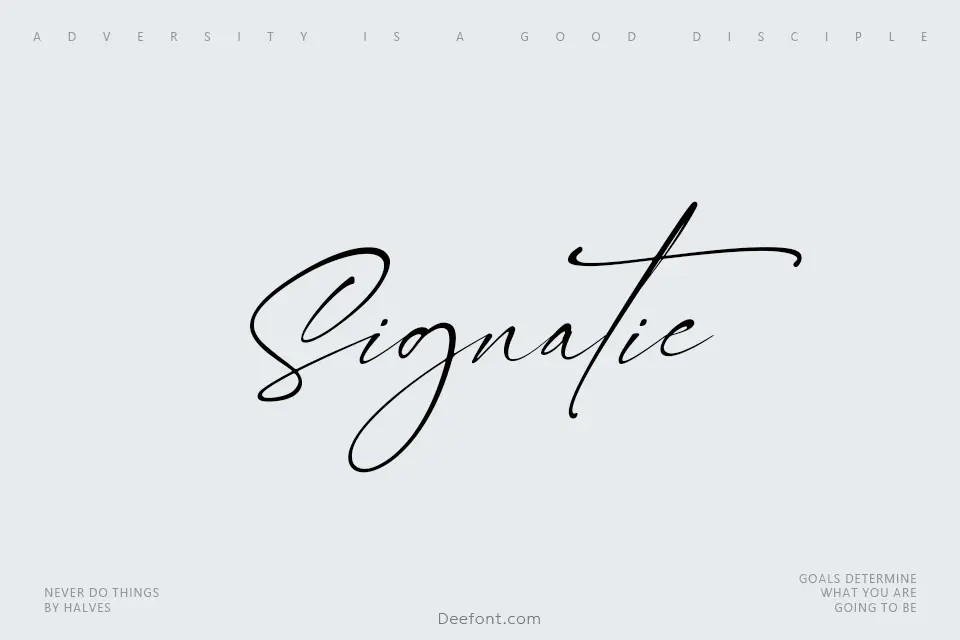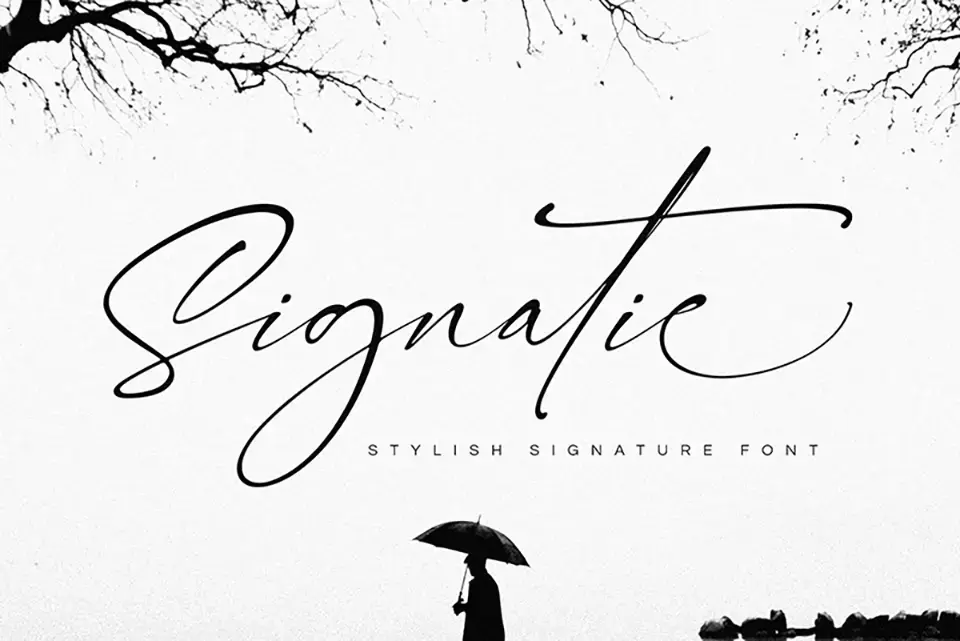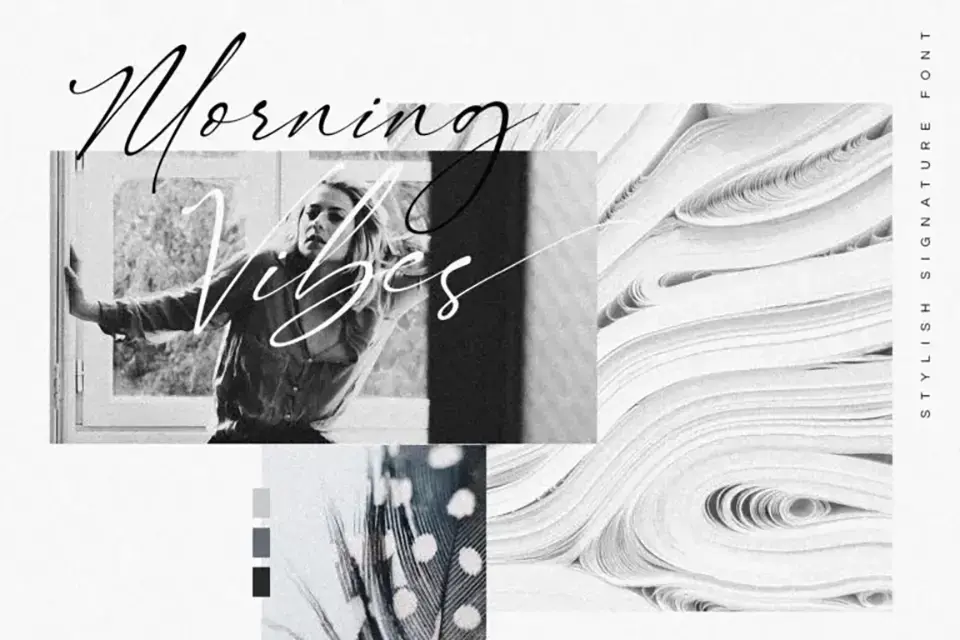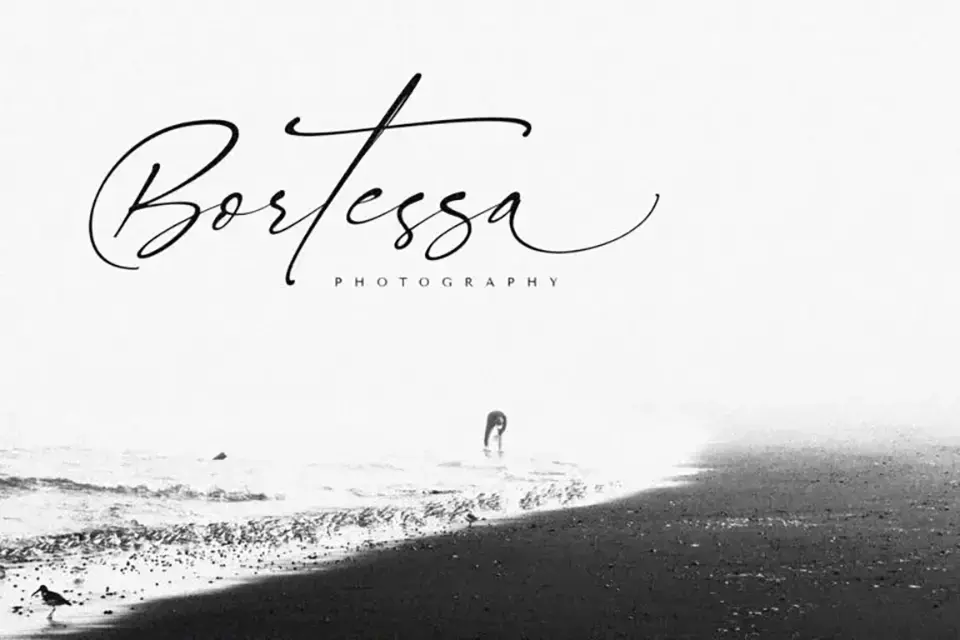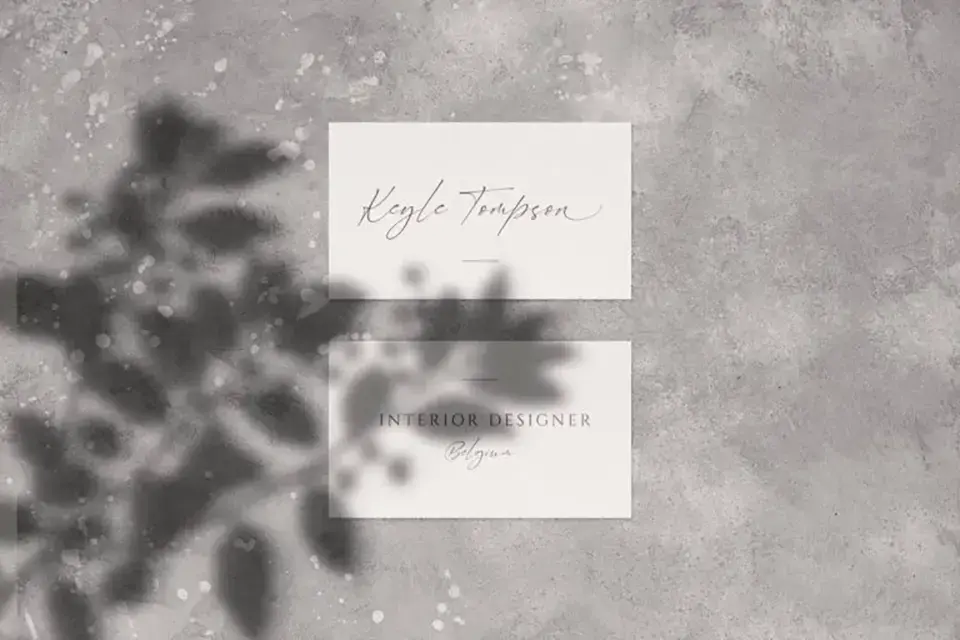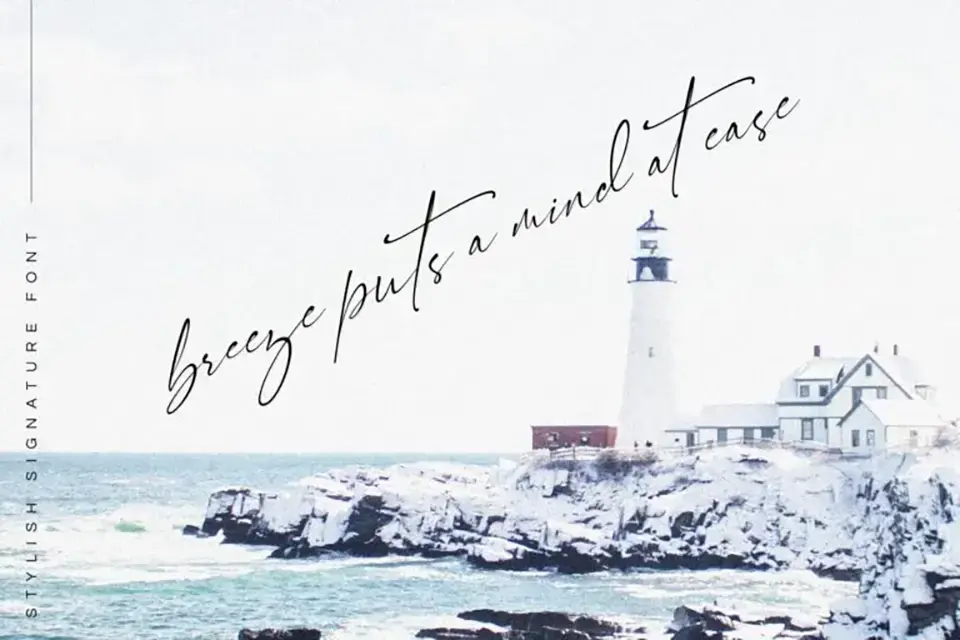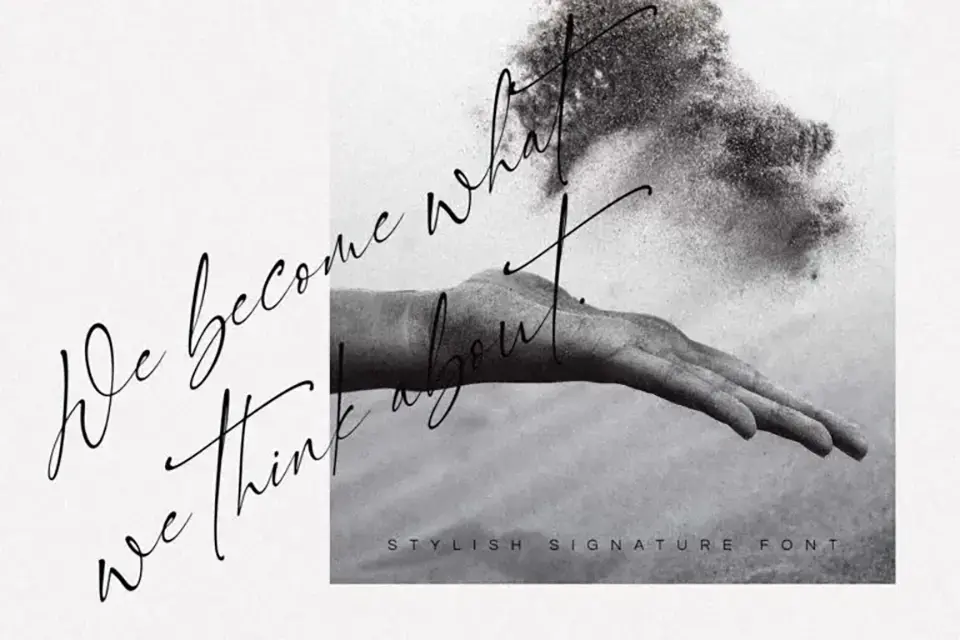
Signatie Font
Signatie is a sophisticated handwritten signature script font designed to bring elegance and modern flair to your creative projects. With smooth, flowing letterforms and refined strokes, this calligraphic typeface excels in logo design, wedding invitations, greeting cards, and social media graphics. The font features beautiful OpenType features including ligatures and ending swashes, making it ideal for sophisticated branding, packaging design, event materials, and luxury product designs requiring an artistic, personalized touch.